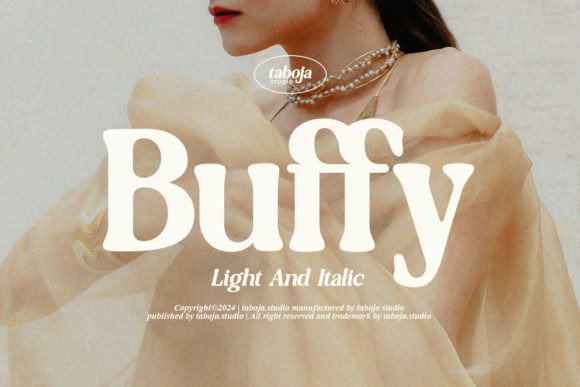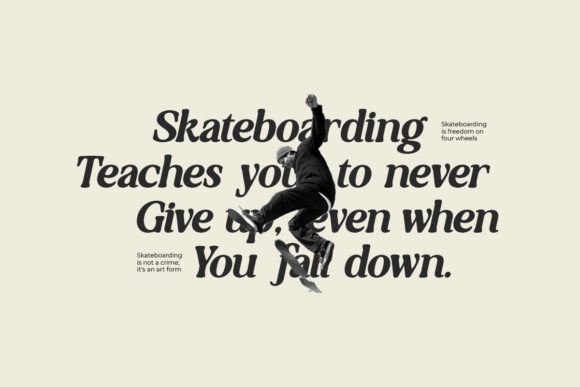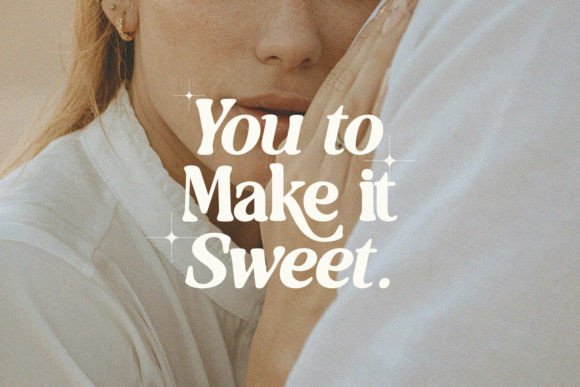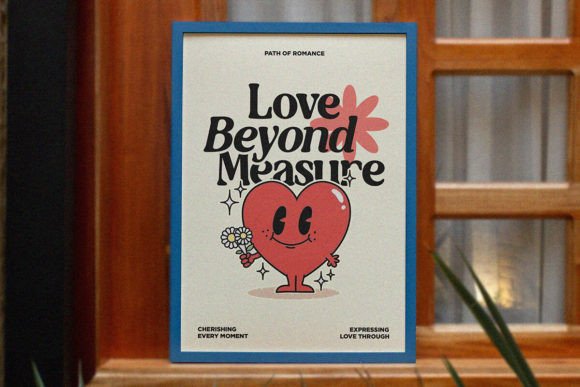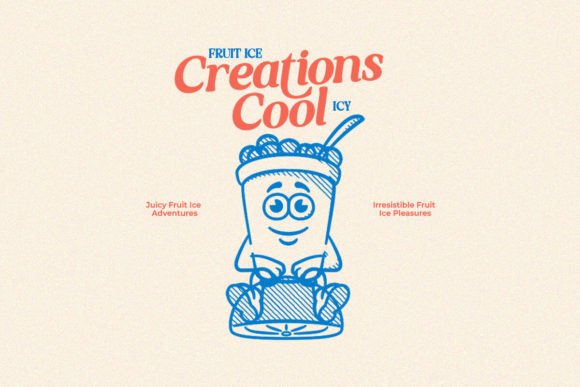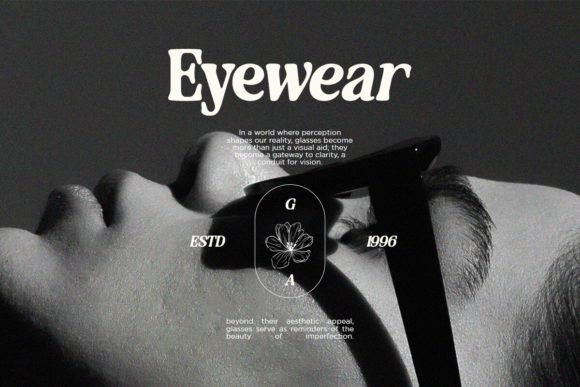
Buffy Font
Say hello to Buffy Serif (Light & Italic), Elegant Serif Typeface with a unique and bold serif display style. This font combines classic serif elements with modern touches, creating visually striking and bold appearance. Buffy font would be perfect for making ideal graphic design projects, posters, and layouts that require unforgettable visual appeal.